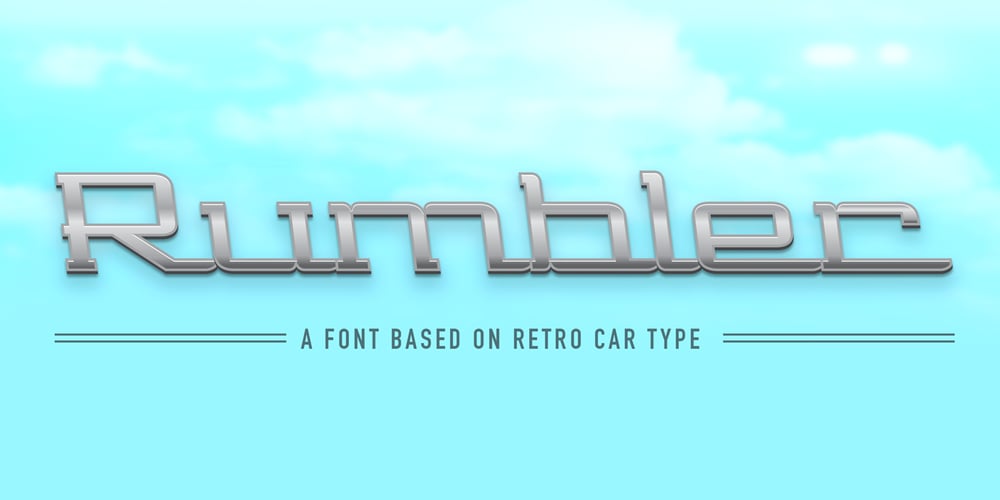
Rumbler
Rumbler font
Rumbler Font Family was designed by Dave Wells and published by Ramen. Rumbler contains 4 styles and family package options. Rumbler is a typeface inspired by old school car lettering, while trying to push it in a unique direction. Reflecting the limitations and constraints of shaped metal, the letter forms twist and contort to create a readable font that can evoke motion and speed, strength, and a retro feel.